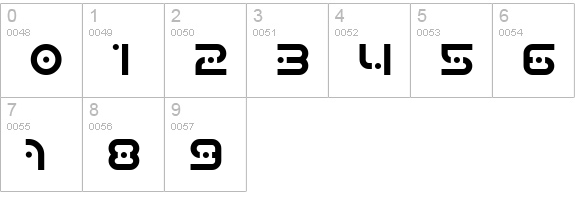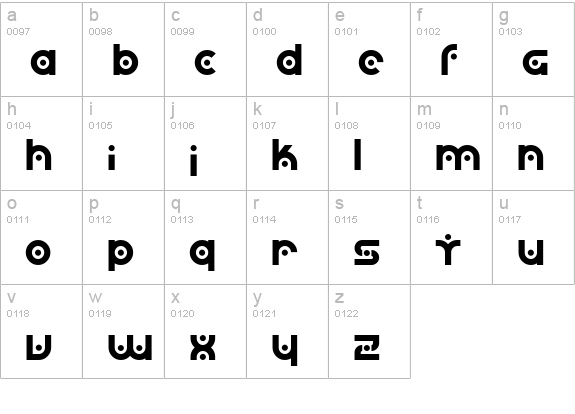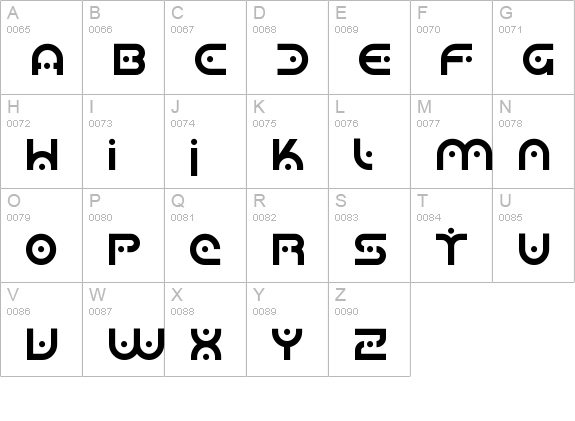
SF Planetary Orbiter Font Details
Introducing SF Planetary Orbiter, a captivating and futuristic font that will transport your designs to otherworldly dimensions. With its sleek and modern letterforms, this typeface embodies the essence of science fiction, space exploration, and the mysteries beyond our own planet. SF Planetary Orbiter boasts a unique blend of geometric shapes and intricate details, resulting in a visually striking and versatile font. Its clean lines and precise curves make it ideal for a wide range of projects, from branding and advertising to digital art and futuristic-themed designs. This font captures the essence of the unknown, evoking a sense of wonder and curiosity. Whether you're designing a poster for a sci-fi convention or creating a logo for a cutting-edge technology company, SF Planetary Orbiter will undoubtedly leave a lasting impression. What sets SF Planetary Orbiter apart is not just its captivating design, but also the fact that it is freely available to download at FontsMarket.com. We believe that everyone should have access to high-quality fonts, and that's why we offer this exceptional typeface for free. So, unleash your creativity without any restrictions and let SF Planetary Orbiter take your designs to new frontiers. Download SF Planetary Orbiter today and embark on a typographic journey through the cosmos. It's time to elevate your designs to new heights and unlock the boundless possibilities that this font has to offer. Experience the power of SF Planetary Orbiter and let your imagination soar among the stars.